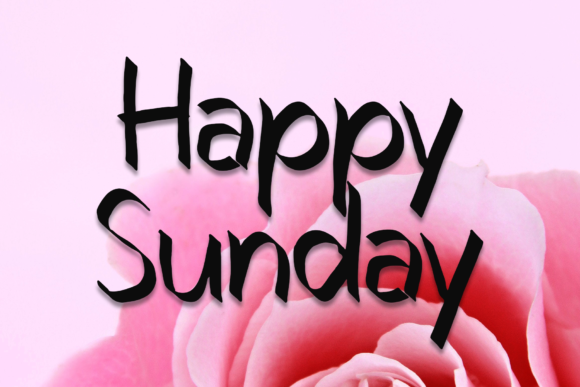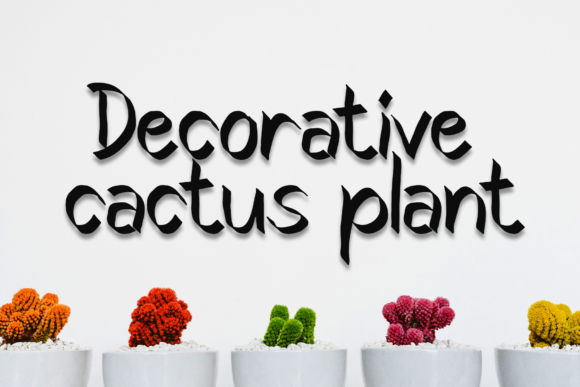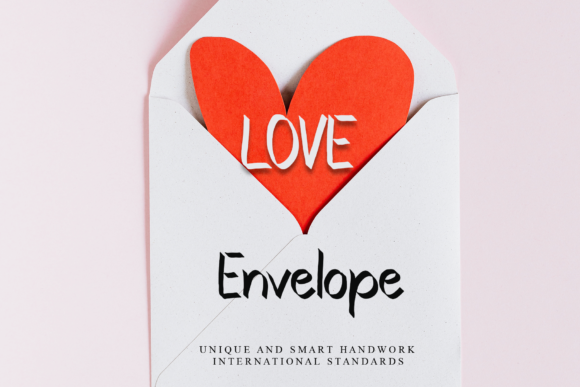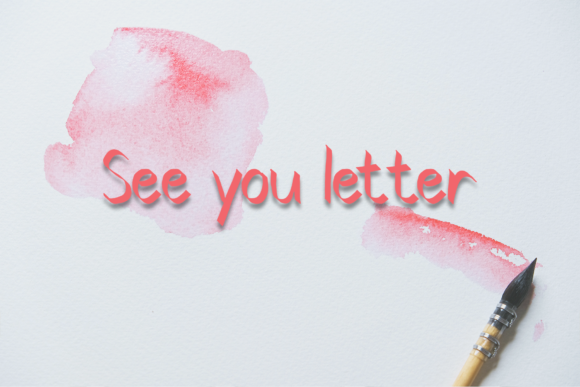
Hocus Pocus Font
About Hocus Pocus Font
Hocus Pocus is a sweet and friendly handwritten font. Its natural and unique style makes it incredibly fitting to a large pool of designs.